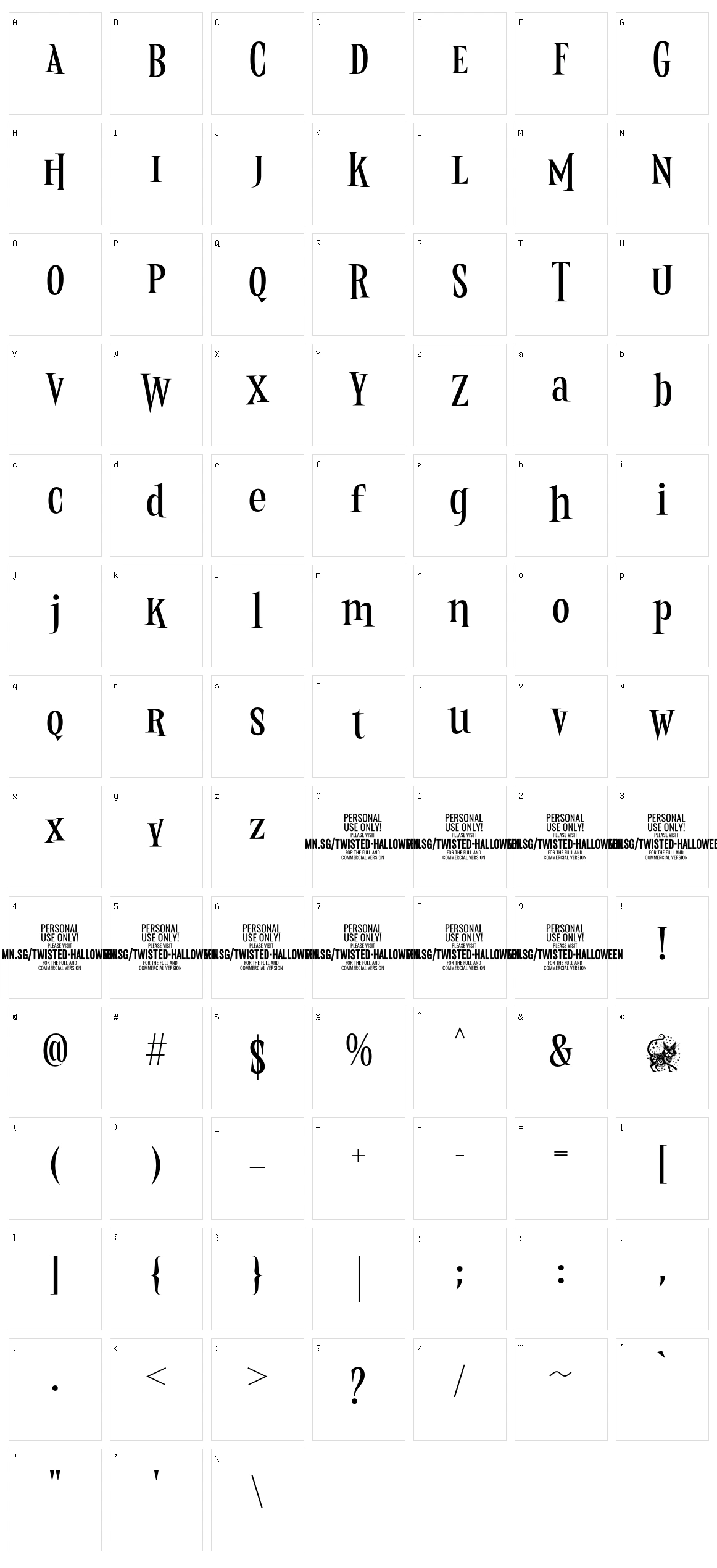
Twisted Halloween typeface embodies the chills and mystique synonymous with a moonlit October night.
Out of the norms, its characters undulate freely, rejecting a fixed baseline, giving each word a personality tinged with a blend of spooky and retro allure.
Imagine letters that dance like shadows cast by a flickering candle, seemingly sketching tales of witchcraft, mystery, and the eeriness found in episodes of the Twilight Zone.
Use asterisk * to make a Halloween cat, or multiple asterisks to make different symbols like pumpkins, demons, skulls.
Example: Witch*Craft & Black******Magic
The font is built with advanced OpenType functionality and has a guaranteed top-notch quality, containing stylistic and contextual alternates, ligatures, and more features; all to give you full control and customizability. It has extensive lingual support, covering all Latin-based languages, from Northern Europe to South Africa, from America to South-East Asia. It contains all characters and symbols you'll ever need, including all punctuation and numbers.
Mans Greback, a seasoned typeface designer, showcases his expertise once again with the creation of Twisted Halloween. With a portfolio that spans various styles and themes, Greback continually establishes himself as a reliable source for both creative and functional font designs.